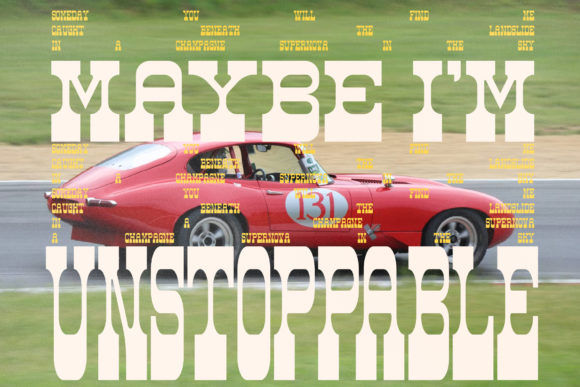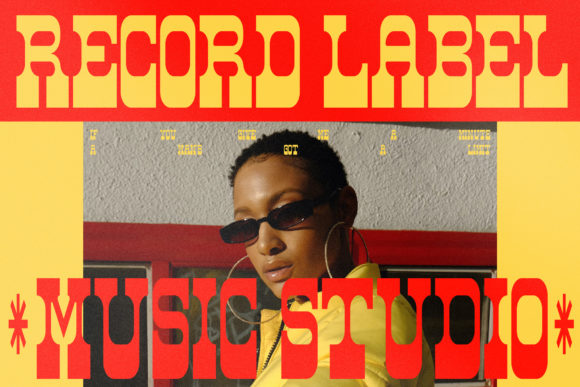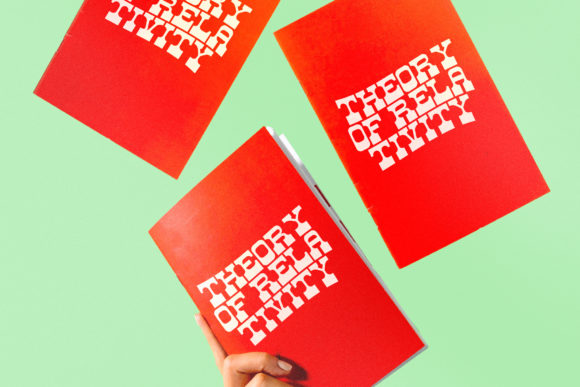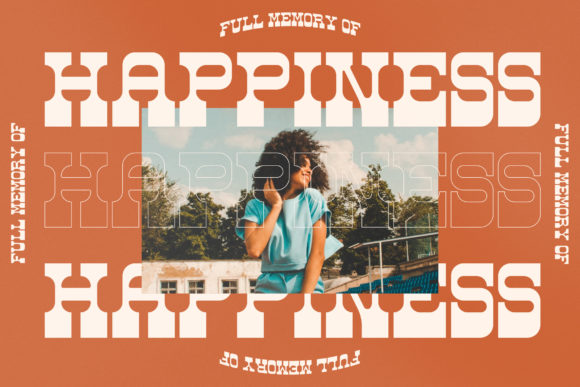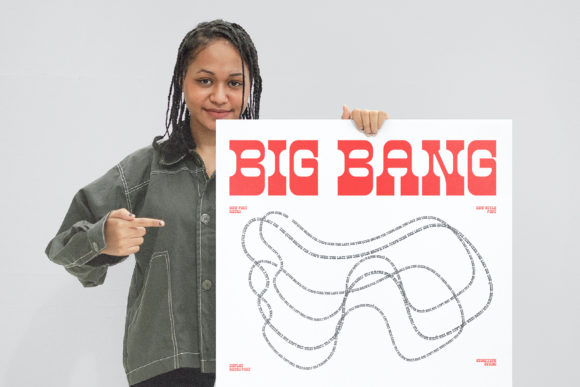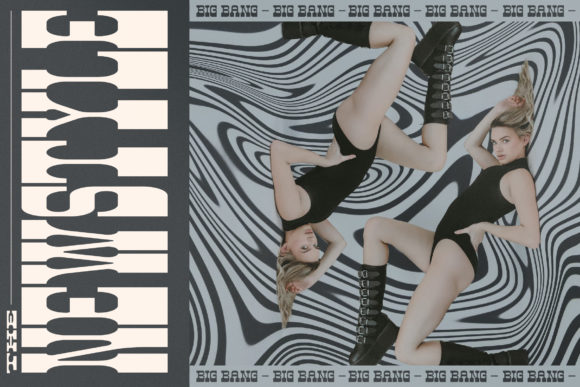
The Big Bang Font: A Modern Serif Marvel for Your Design Projects
I’ll never forget the time I was working on a luxury fashion brand’s logo design project. My client wanted something elegant, bold, and eye-catching. I scoured the internet for the perfect font, but nothing seemed to fit the bill. That was until I stumbled upon the Big Bang font. Its unique blend of modernity and sophistication instantly caught my attention, and I knew I had found the perfect fit. In this article, I’ll share my experience with the Big Bang font, its features, and how to make the most of it in your design projects.
A Personal Review: What I Love and What I Don’t
- ✅ Unique and modern design: The Big Bang font boasts a fresh and contemporary look that’s perfect for luxury brands, fashion magazines, and high-end designs.
- ✅ Elegant and sophisticated: The serif font features a refined and polished aesthetic that’s ideal for creating a sense of luxury and sophistication.
- ✅ Highly versatile: The Big Bang font can be used for a wide range of design projects, from logos and titles to quotes and lettering.
- ⚠️ Limited use for body text: While the Big Bang font is perfect for titles and headings, it may not be the best choice for body text due to its bold and decorative nature.
- ⚠️ Some glyphs may require manual adjustment: Depending on the design project, some glyphs may require manual adjustment to ensure proper spacing and alignment.
- Experiment with the font’s OpenType features, such as Stylistic Alternates and Glyphs, to add more creativity to your design.
The Designer Inspiration Behind Big Bang
The Big Bang font was designed with the goal of creating a modern and elegant serif font that would meet the needs of luxury brands and high-end designs. The designer drew inspiration from classic serif fonts, while incorporating modern elements and a unique aesthetic. The result is a font that’s both sophisticated and attention-grabbing.
Q: What type of designs is the Big Bang font best suited for?
A: The Big Bang font is perfect for luxury brands, fashion magazines, high-end designs, and any project that requires a modern and elegant serif font.
Q: Can I use the Big Bang font for body text?
A: While the Big Bang font can be used for body text, it may not be the best choice due to its bold and decorative nature. It’s better suited for titles, headings, and quotes.
Q: Does the Big Bang font support OpenType features?
A: Yes, the Big Bang font supports OpenType features, including Stylistic Alternates and Glyphs.